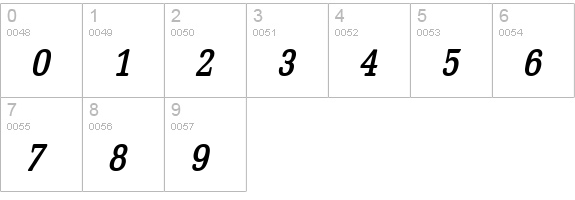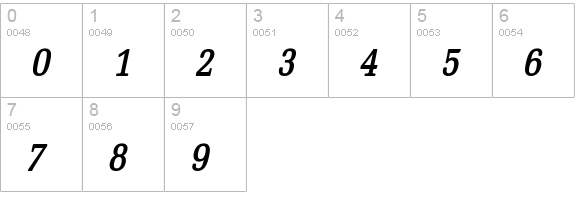
Bid Roman-Condensed Bold Italic is a strong, high-contrast, condensed-width, italic variant in the Bid typeface family \xE2\x80\x94 well suited to headlines, attention-grabbing titles, and strong calls-to-action.
Bid Roman-Condensed Bold Italic is a striking and modern font that commands attention with its sleek design and bold strokes. Perfect for creating eye-catching headlines or adding a touch of sophistication to your design projects, this font exudes confidence and style. The condensed style adds a sense of space-saving efficiency, making it ideal for projects where space is limited. And the best part? Bid Roman-Condensed Bold Italic is available for free download at FontsMarket.com. This means you can easily access this premium font without any cost, making it a valuable addition to your font collection. Whether you're working on a branding project, advertising campaign, or any other design endeavor, Bid Roman-Condensed Bold Italic is sure to elevate your work with its unique and dynamic look. Download it today and let your creativity shine with this exceptional font.